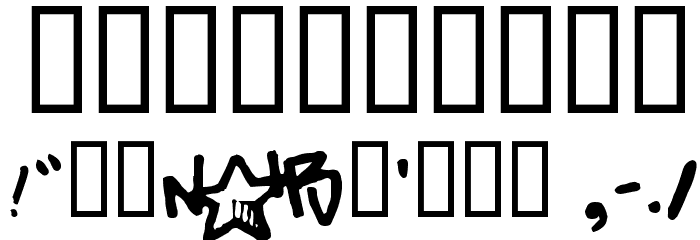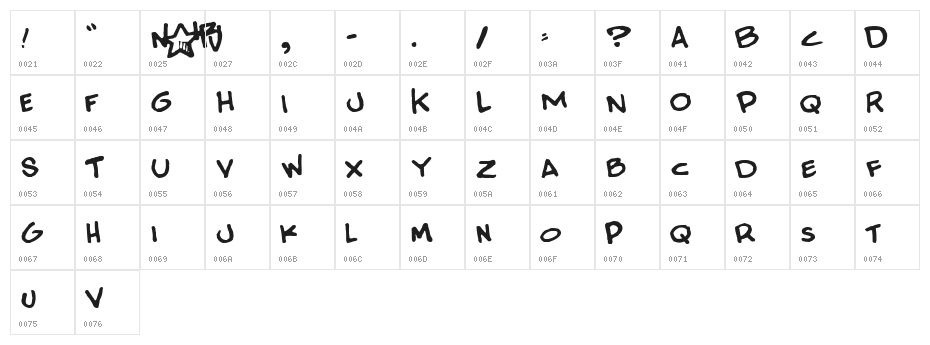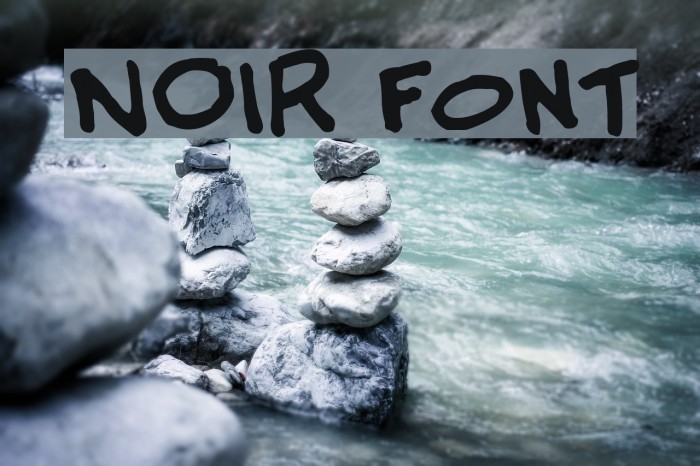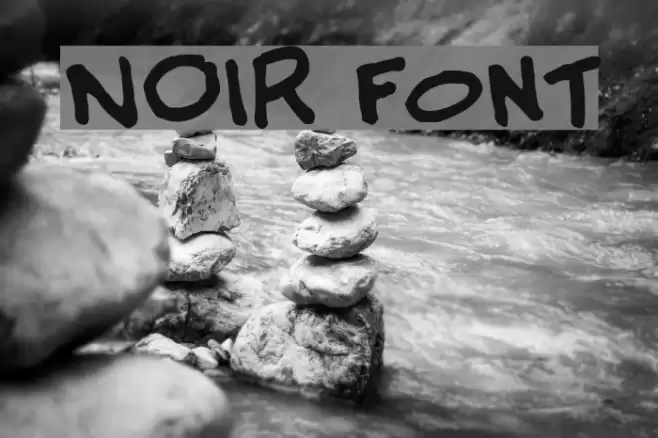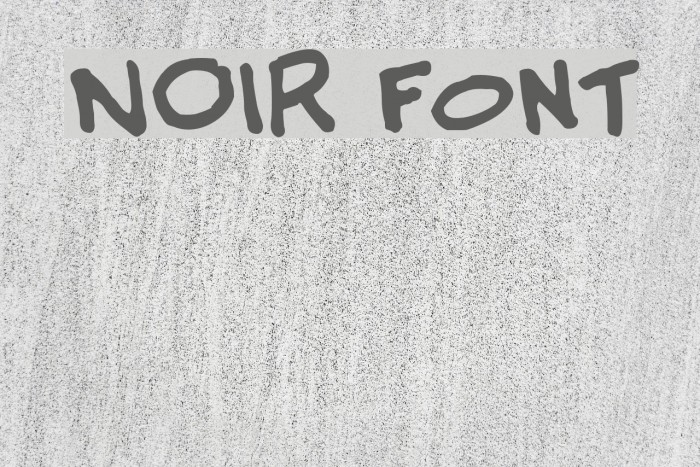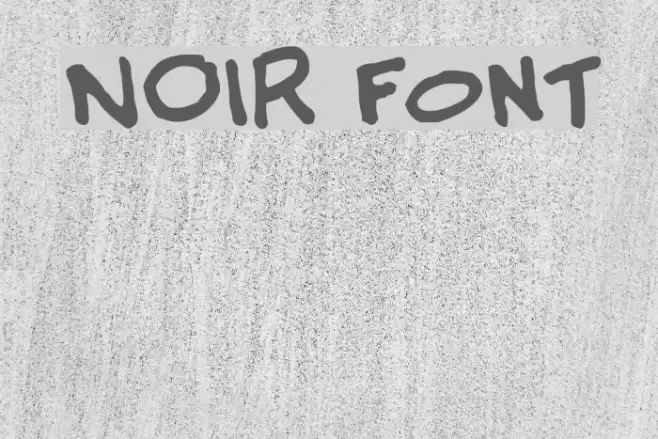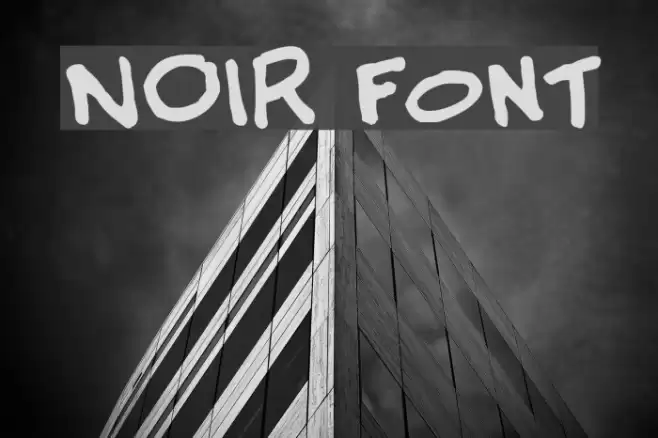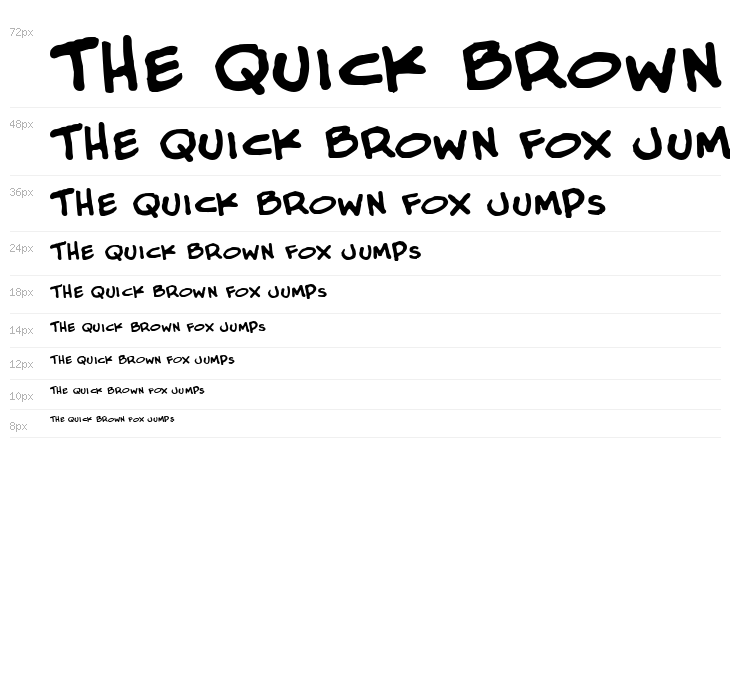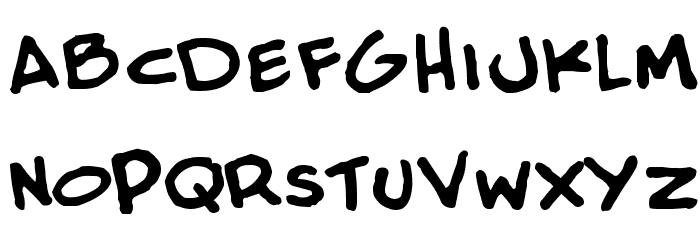
NOIR Font
NOIR Description
This font features a bold, handwritten style with a playful and informal appearance. The letters are slightly irregular, giving it a casual and approachable feel. The strokes are thick and consistent, providing a strong visual impact. The uppercase and lowercase letters maintain a cohesive look, while the numbers and special characters complement the overall design. This font is ideal for projects that require a personal touch or a creative flair, such as invitations, posters, or social media graphics.